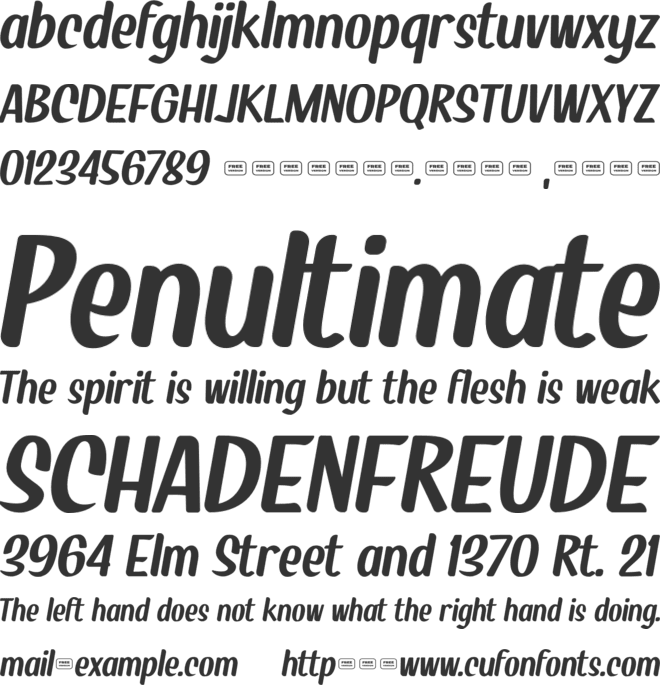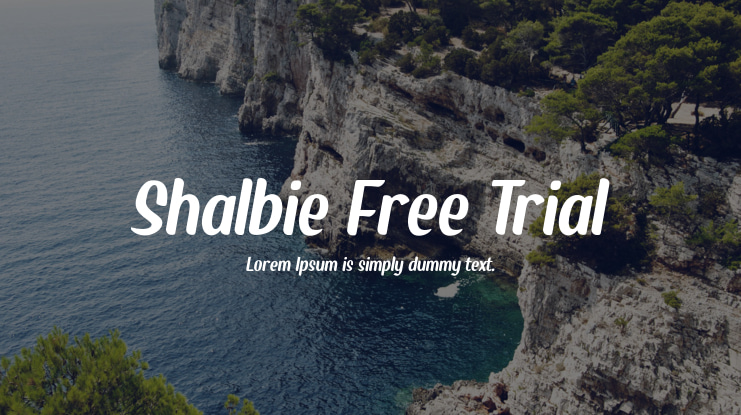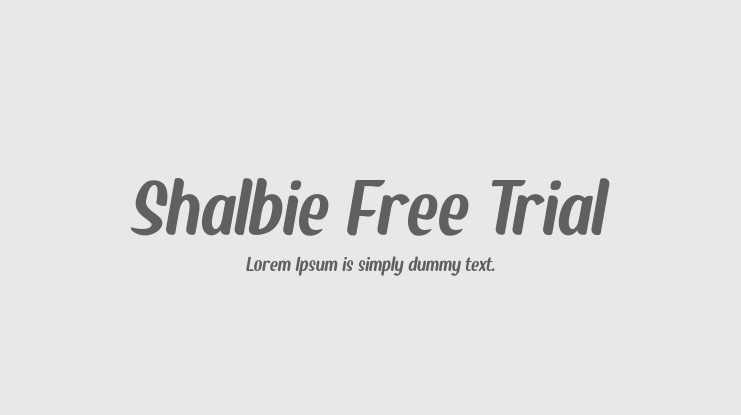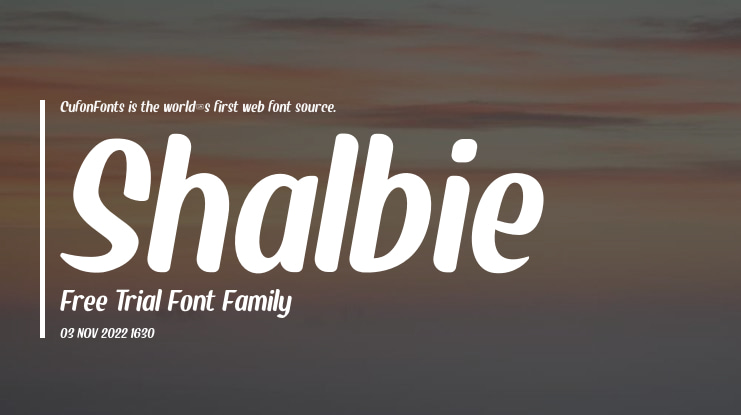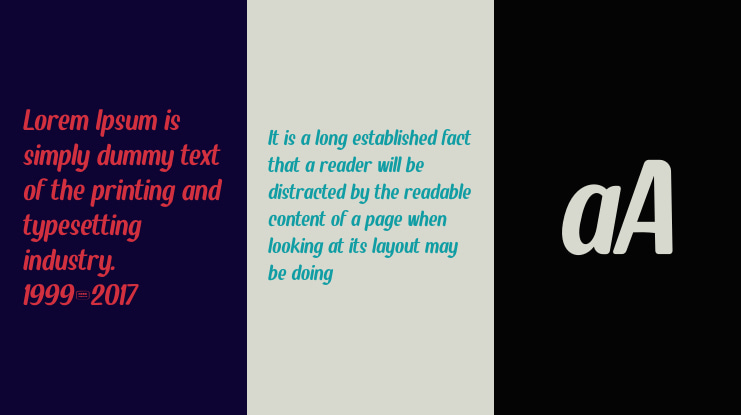
Shalbie Free Trial Font
Elevate your designs with "Shalbie" - a captivating poster font style that demands attention and exudes artistic flair!
With its bold and expressive letterforms, "Shalbie" makes a striking statement in any project. Each character is meticulously crafted to showcase a perfect blend of boldness and creativity, making it ideal for eye-catching posters, dynamic signage, modern branding, and more.
Embrace the artistic essence of "Shalbie" as it effortlessly enhances your designs. Whether you're creating attention-grabbing event posters, vibrant advertisements, stylish packaging, or captivating social media graphics, this font will captivate your audience with its unique and poster-worthy style.
Step into the spotlight with "Shalbie" and let your designs shine with boldness and artistic finesse!